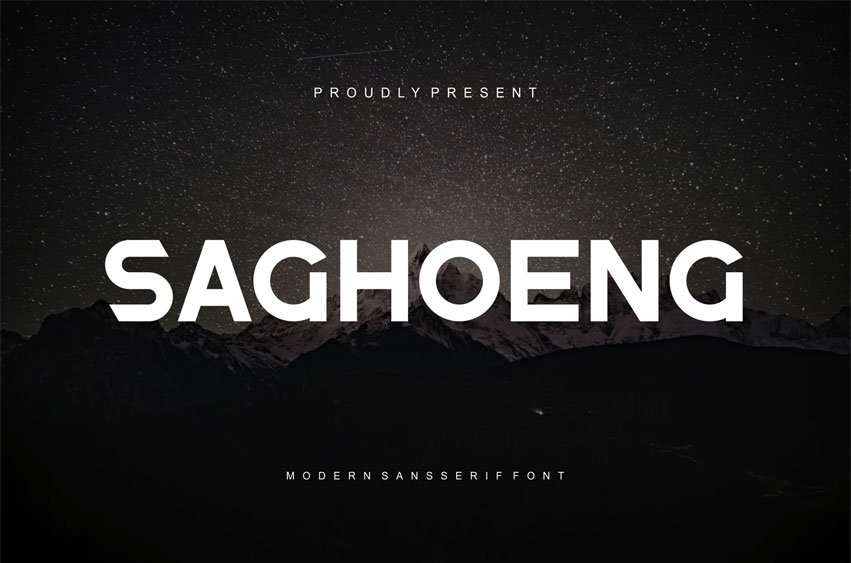
Saghoeng Font Modern Font is a bold and authentic display font. The font is suitable for any branding project like logo, t-shirt printing, esports, and many more. outstanding in a wide range of contexts.